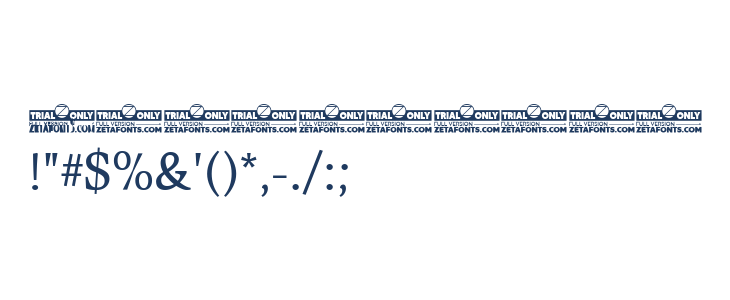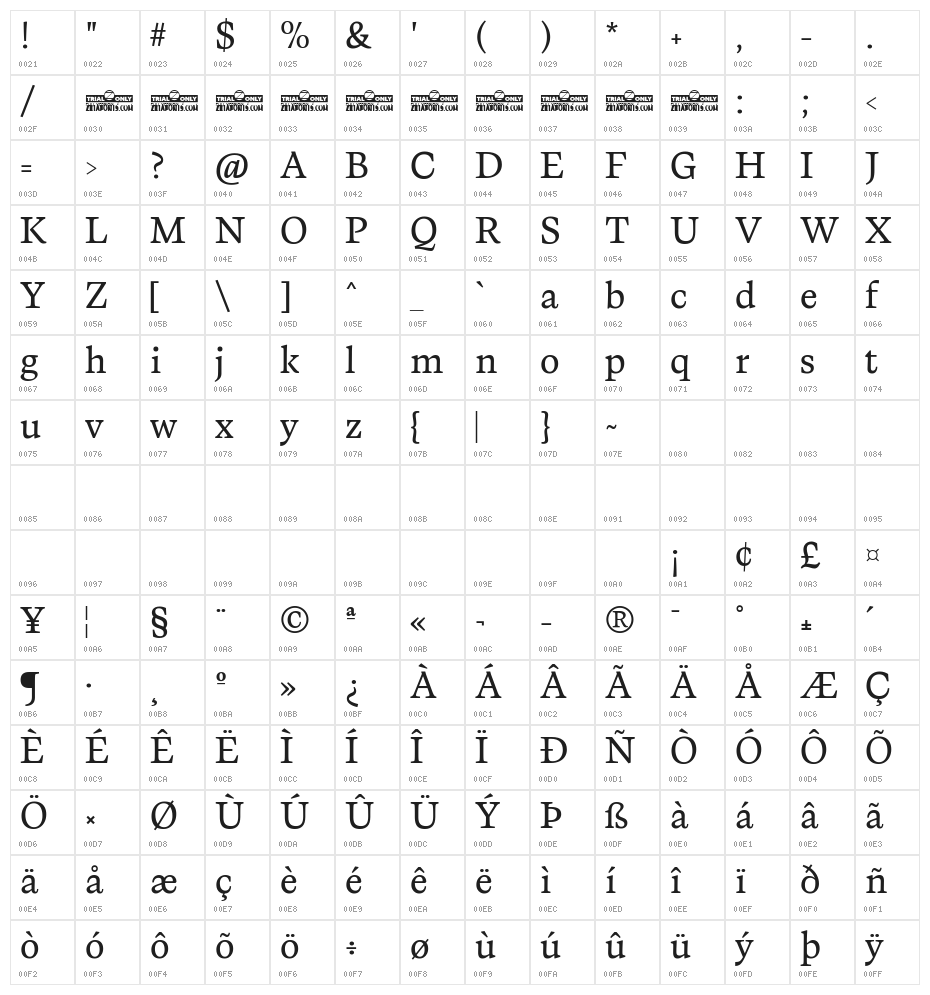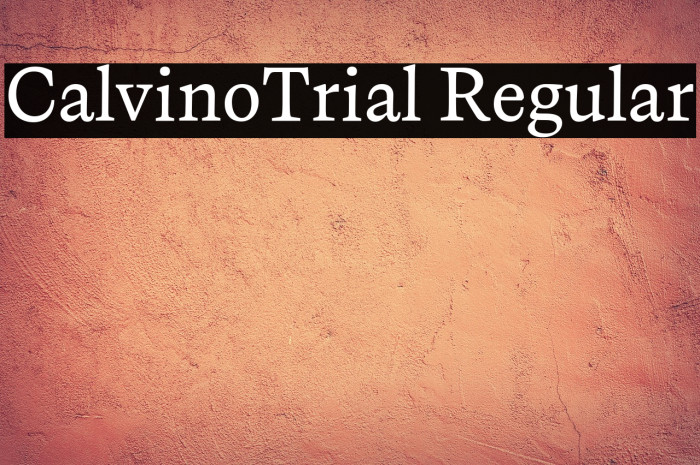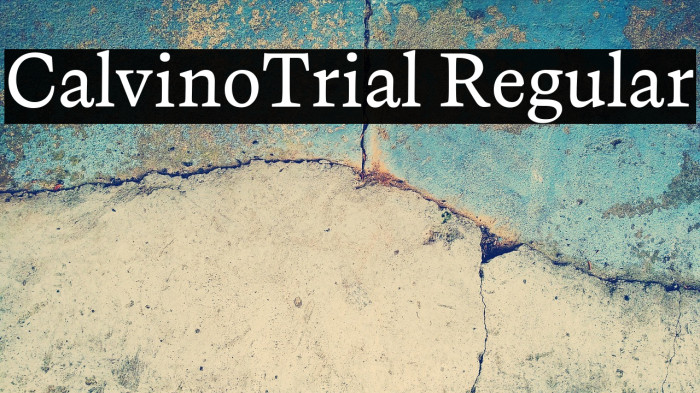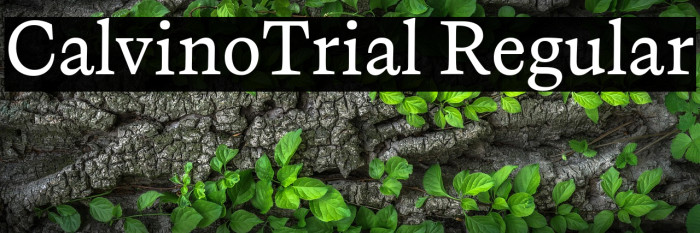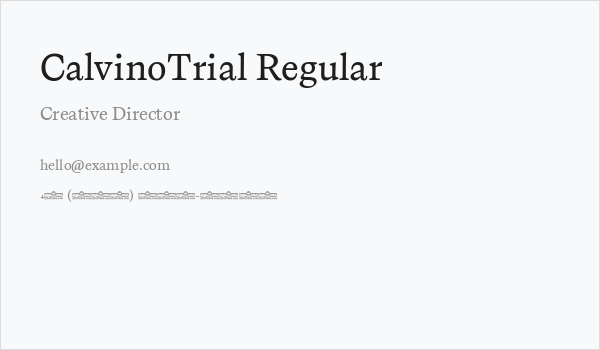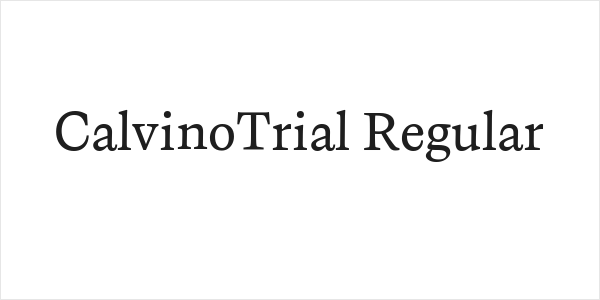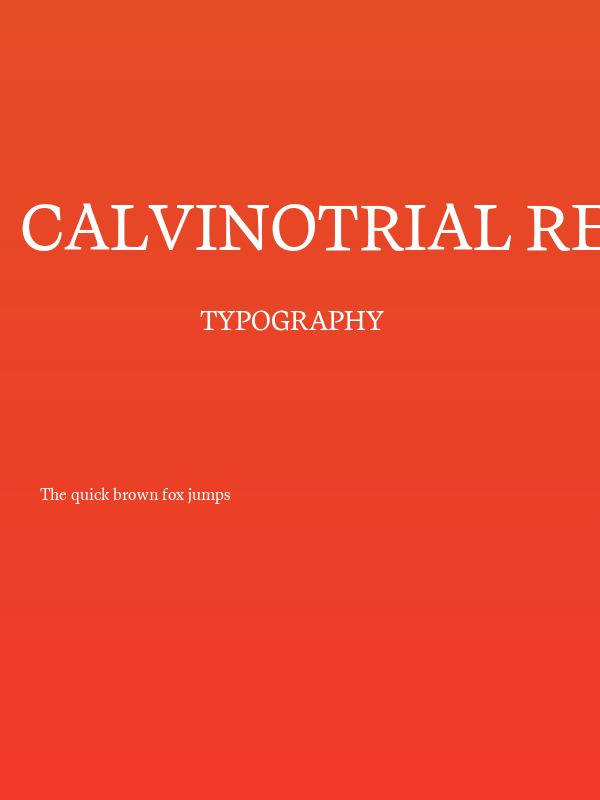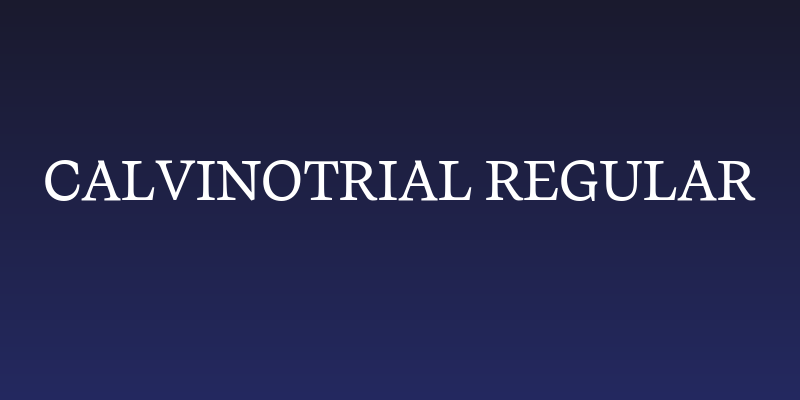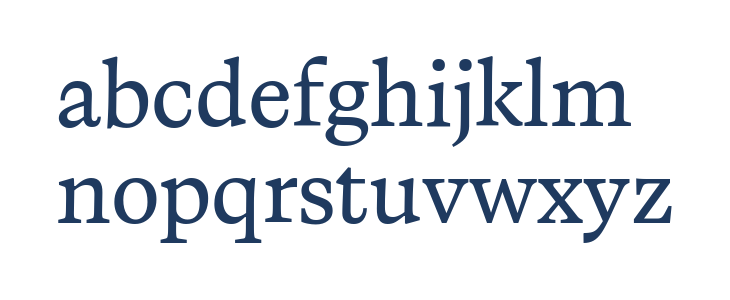
CalvinoTrial Regular Font
CalvinoTrial Regular Description
This font exhibits a classic serif style with a modern twist, characterized by its elegant and sophisticated appearance. The uppercase letters are bold and commanding, while the lowercase letters maintain a refined and balanced look. The serifs are pronounced, adding a touch of tradition and authority. The numerals are clear and distinct, making them suitable for various applications. Special characters are well-defined, ensuring versatility in design projects. The overall impression is one of professionalism and timelessness, making it ideal for formal documents, branding, and editorial use.